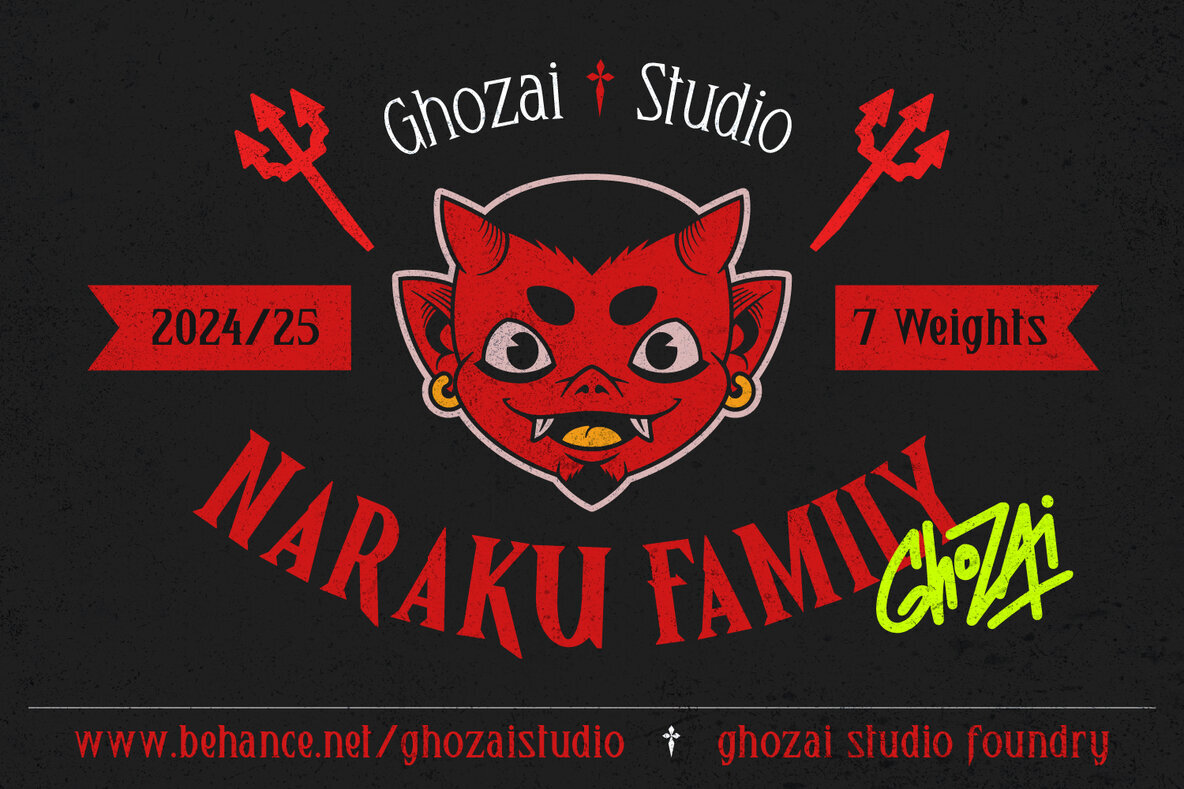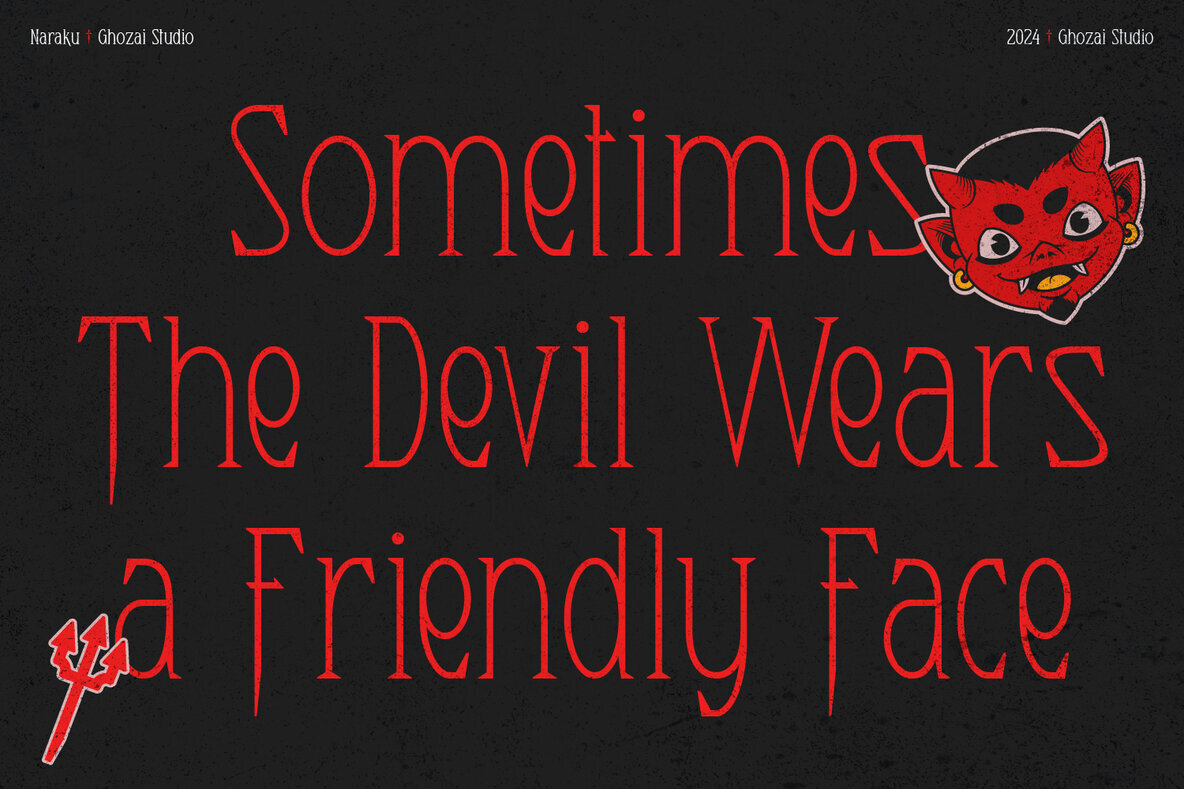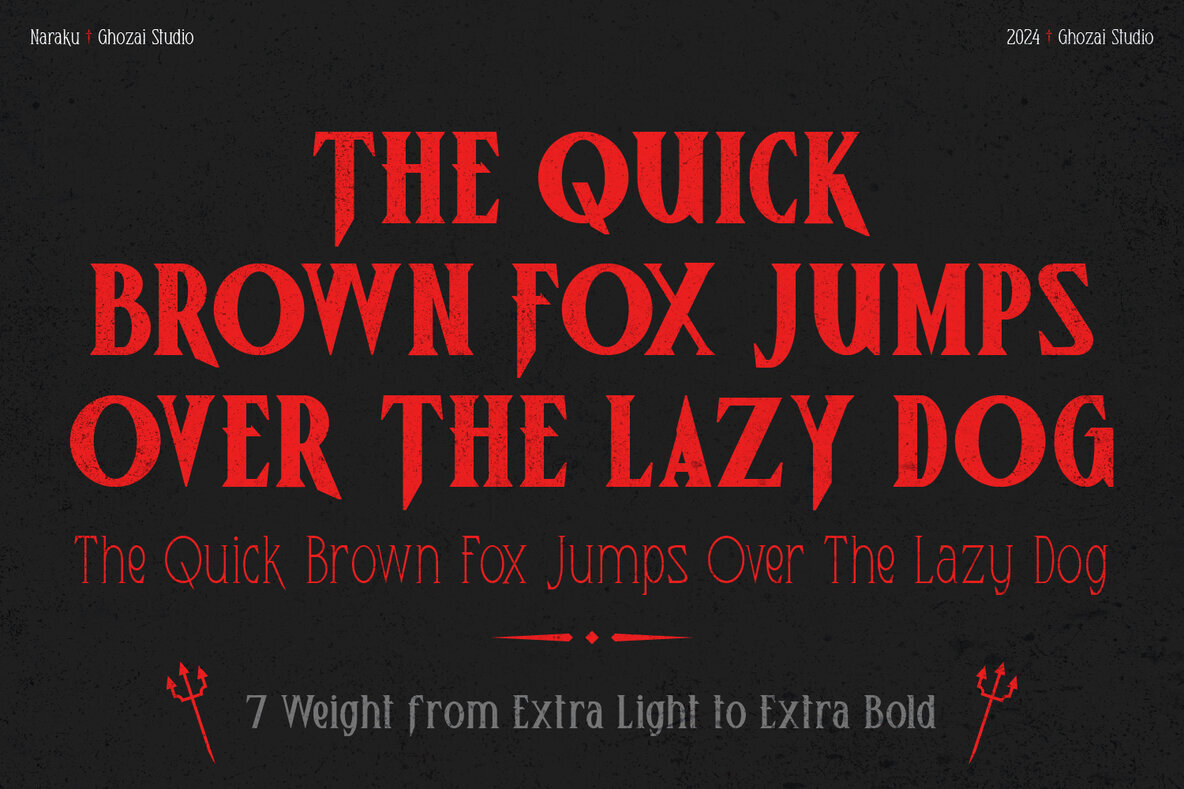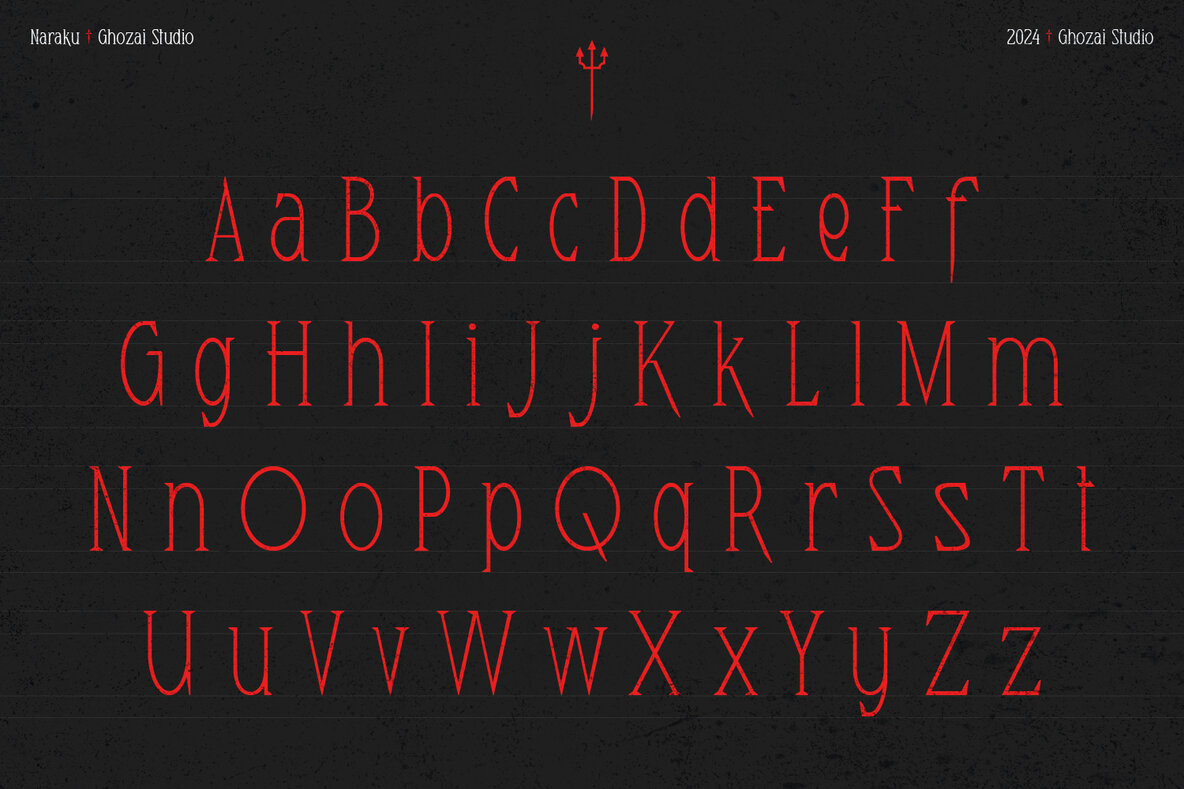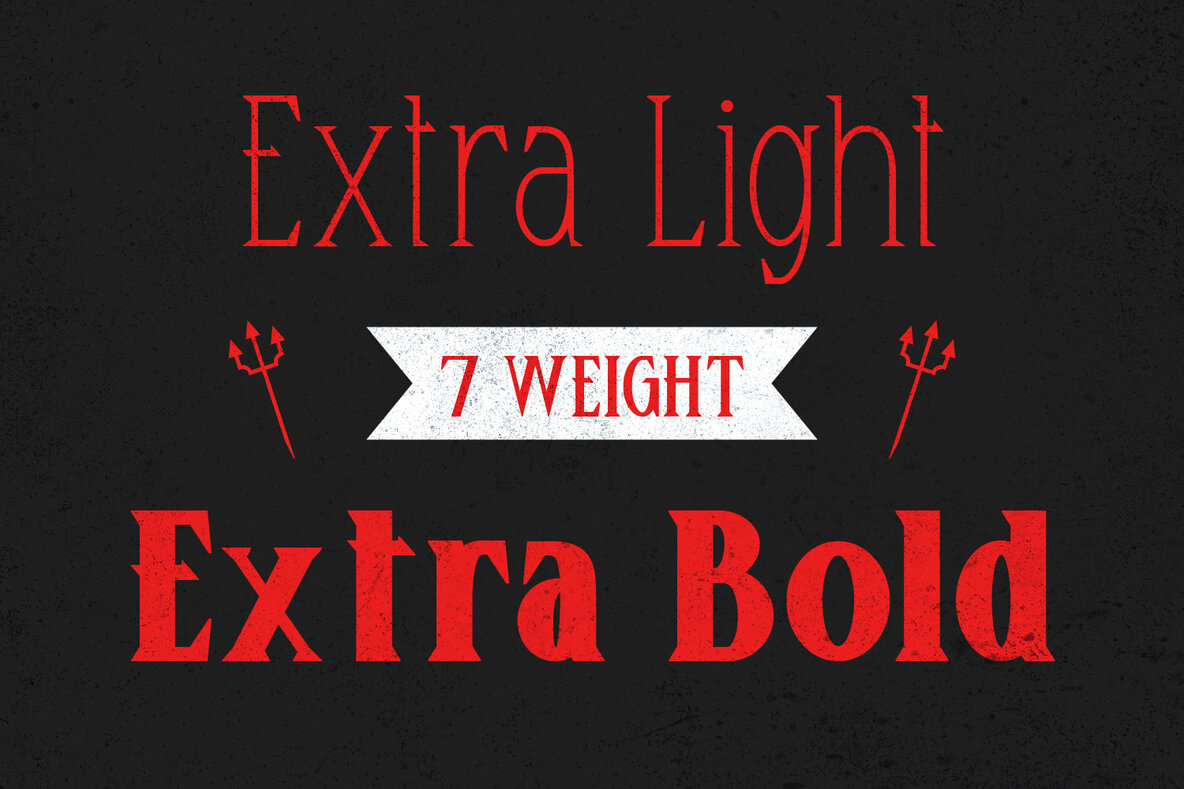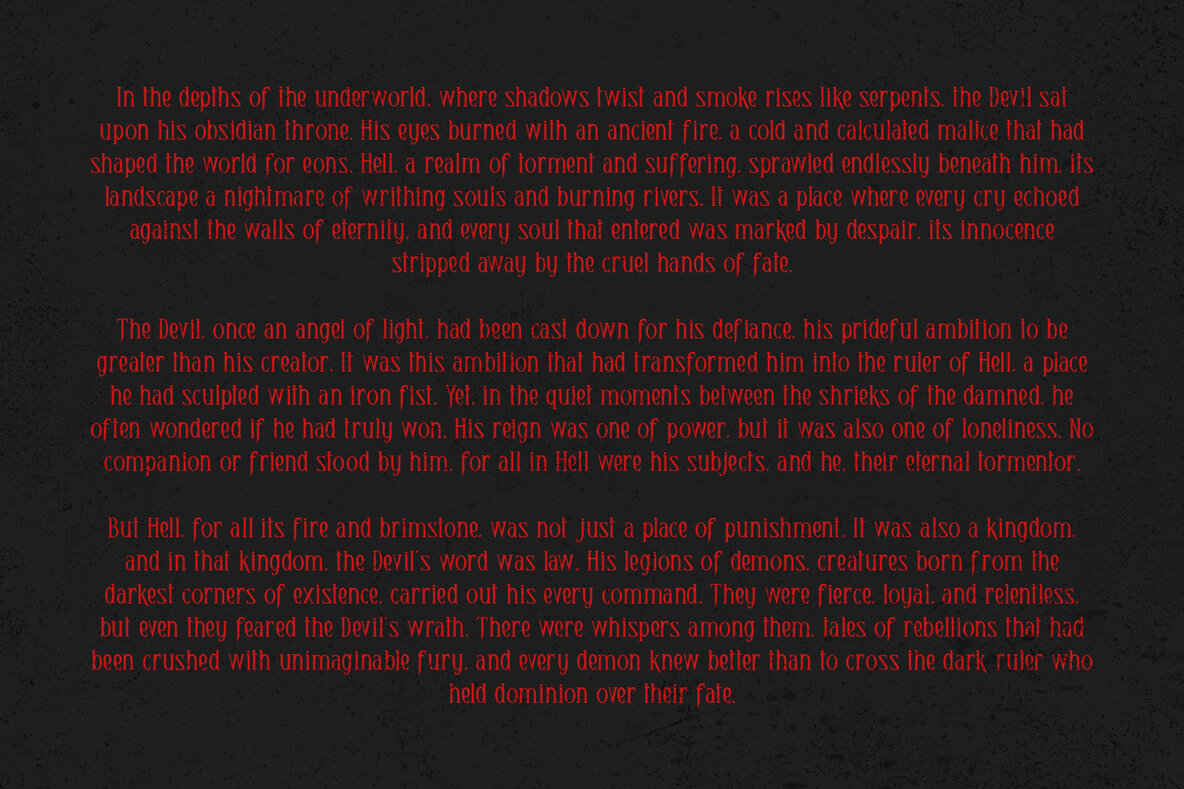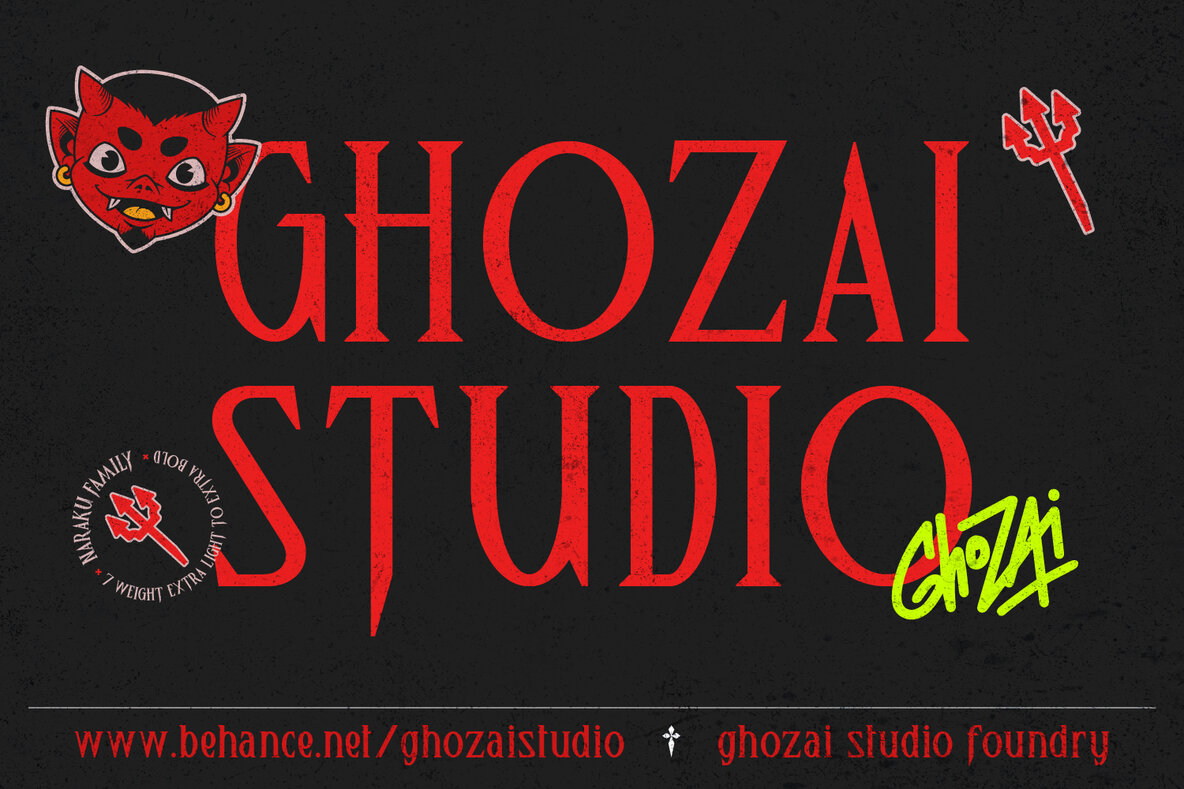
Naraku Font
Naraku is a serif font that comes with 7 weights from extra light to extra bold. Combining a bold and thin stroke to give a high contrast and personality for the font, and bring fresh, lively features to its design. With a wide range of styles, Naraku is suitable for any design project such as sport design, fashion, band poster, headline, and many others.